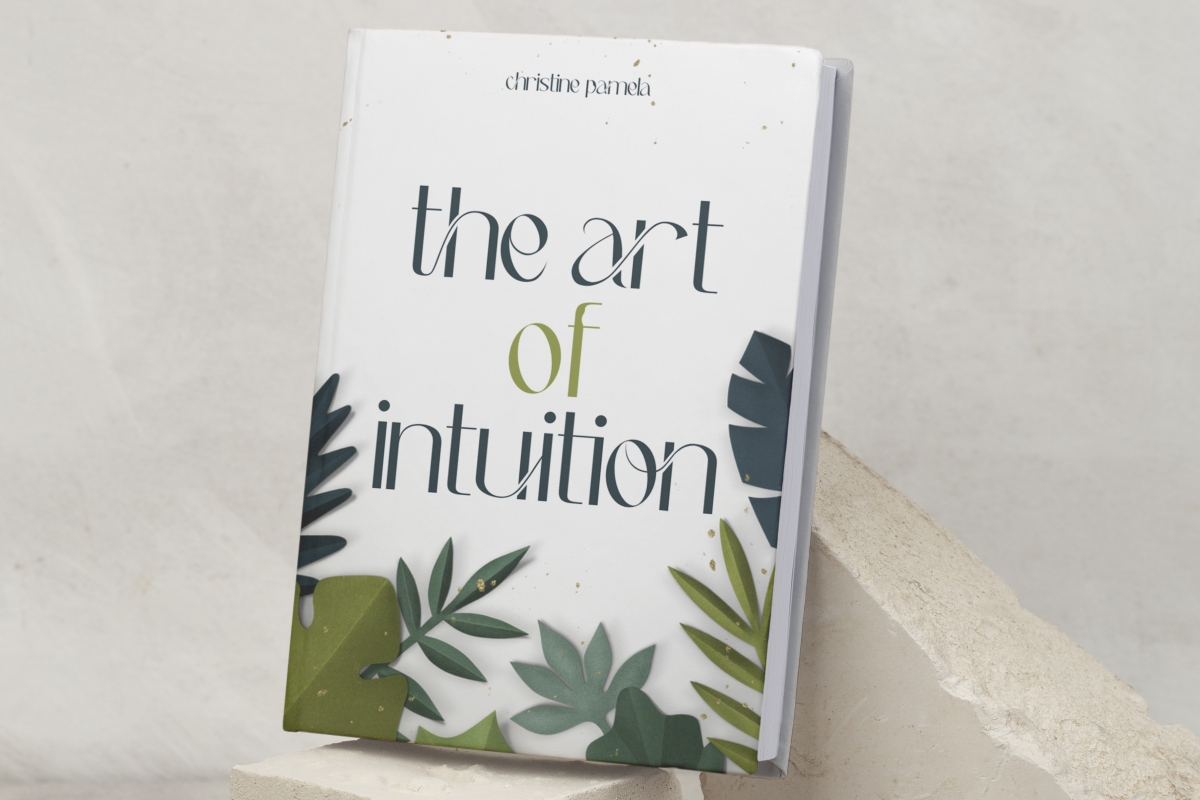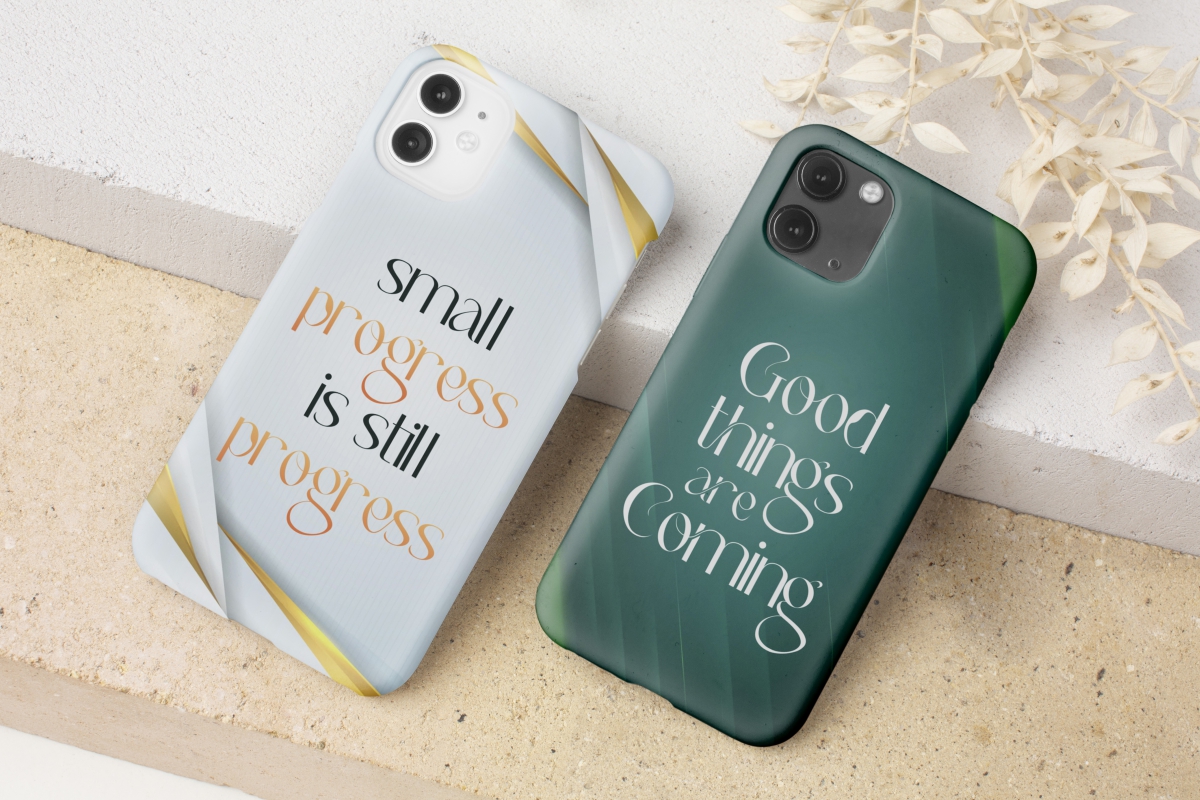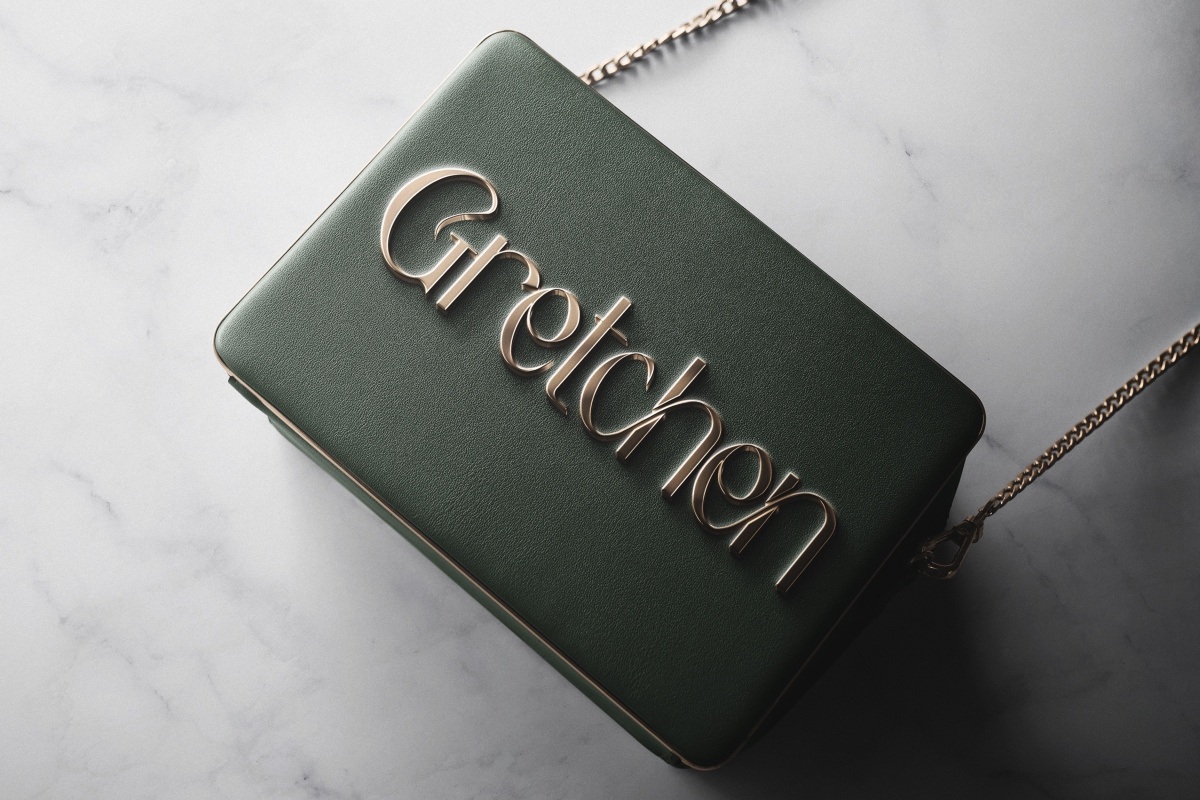
Berry Cheeks Font
Berry Cheeks Sans Serif Font
It’s an elegant font with a charming touch, created by EdricStudio. This typeface also has a sophisticated and stylish look making it suitable for industries, such as accessories, architect, art gallery, boutique, fashion, florist, homeware, salon, spa, wedding organizer, writer, and anything that requires a touch of elegance.
Berry Cheeks Font comes with a full set of Uppercase and Lowercase Basic Characters, Number, large range of Punctuation and Symbol, also Ligature. It has a stunning characters set, perfectly managed with well spaced and kerning. Berry Cheeks Font will be great for any projects (with extended license) including: art frame, brand logo, custom design, headline, labels, printed materials, quotes, etc.